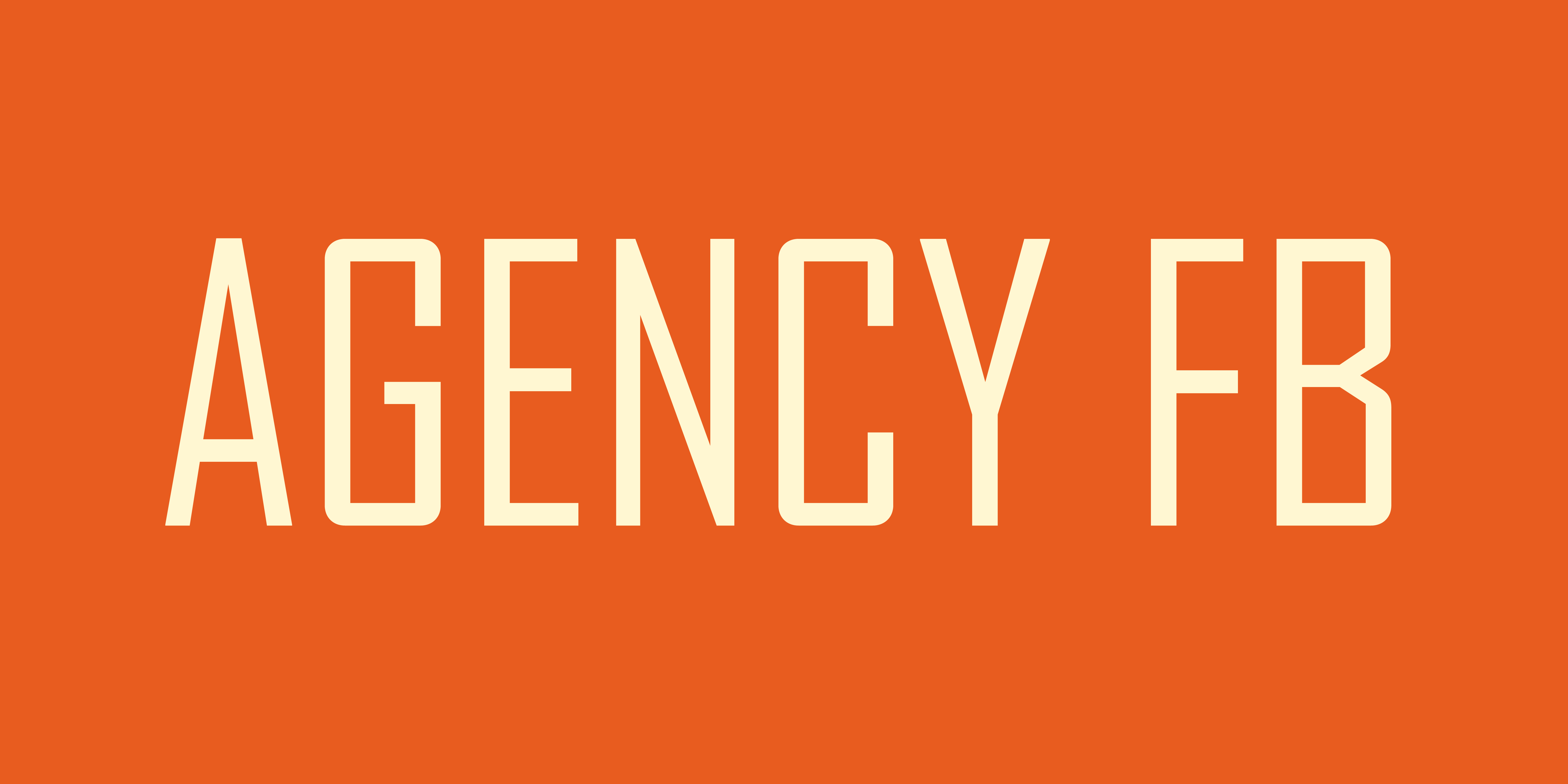
Agency FB Font is perfect for impact projects including advertising agency branding, bold headline designs, attention-grabbing poster graphics, dynamic logo creation, promotional campaign materials, sports team graphics, high-energy event promotions, and commanding billboard advertisements. This powerful typeface brings condensed strength and visual authority to any design project.
What makes Agency FB Font exciting is its commanding condensed design that maximizes impact while conserving horizontal space through tall, narrow letterforms. The bold character construction features strong vertical emphasis and tight spacing that creates immediate visual dominance while maintaining excellent readability at large sizes. This font delivers the perfect solution for designers who need maximum impact in minimal space, making every word count with authority and presence.
The Agency FB Font family typically includes bold and regular weights with condensed styling, complete uppercase and lowercase alphabets, numerals, punctuation, and impactful symbols. The design incorporates narrow proportions and strong vertical characteristics that enhance the commanding aesthetic. Some versions include additional weights and extended character sets that maintain the font's core condensed power while offering typographic flexibility.
Whether you're designing for advertising agencies, sports organizations, or high-impact marketing campaigns, Agency FB Font Free Download delivers the concentrated power that demands immediate attention. Its condensed presence makes it ideal for space-efficient headlines and brand identities that need to make bold statements with limited real estate. The font's agency heritage ensures it communicates confidence and authority, making it perfect for any project requiring the commanding aesthetic of professional advertising excellence and visual impact.